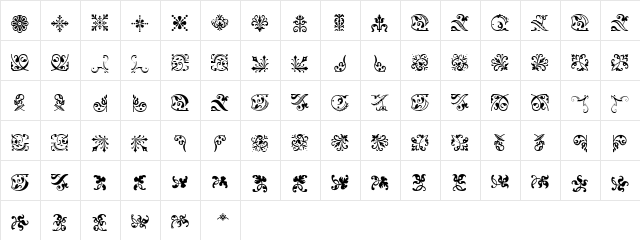
Baroque Ornaments Regular
Design Context for Baroque Ornaments Typeface
Baroque Ornaments is built around its visual character rather than neutral utility — its distinctive forms are designed to make an impression at display sizes.
Font Pairing: Pair with a clean neutral sans-serif for body copy to let Baroque Ornaments's character lead without overwhelming the composition.
Pro Tip: Use Baroque Ornaments exclusively at display sizes — it was designed to be seen, not read at length. Let a neutral companion handle body copy.